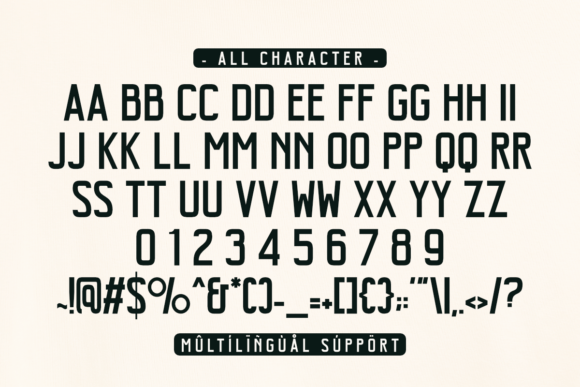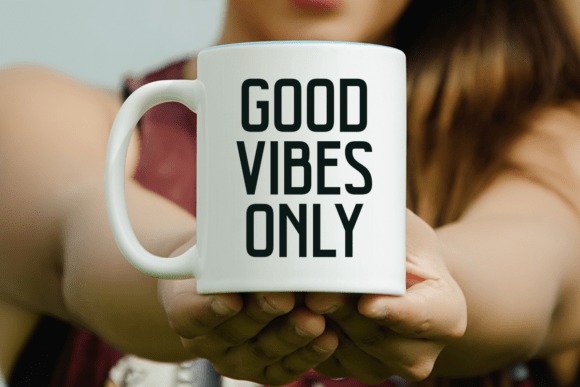
Bruh Font
Bruh is the ultimate bold sans serif font, designed to deliver your message with a perfect blend of modern style and sarcastic wit. This all-caps display font is ideal for creators who love a good chuckle and a bit of playful mockery. Perfect for sarcastic t-shirts, funny mugs, ironic digital art, and any design needing a confident, “duh!”-worthy vibe. It’s your go-to for Etsy sellers, Cricut enthusiasts, print-on-demand businesses, and sublimation projects seeking to make a statement with humor and attitude.